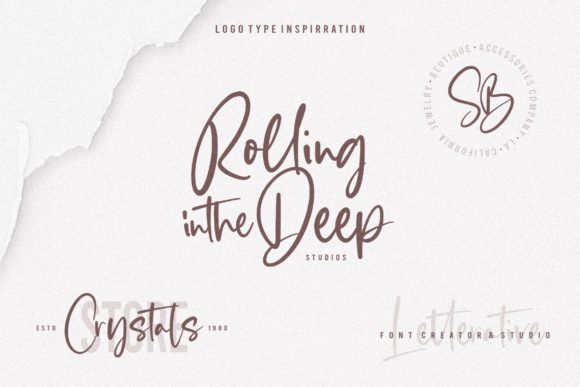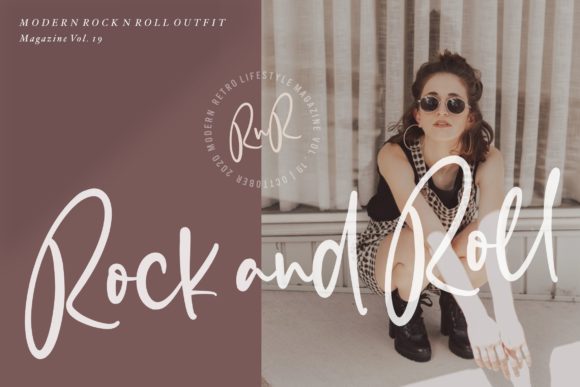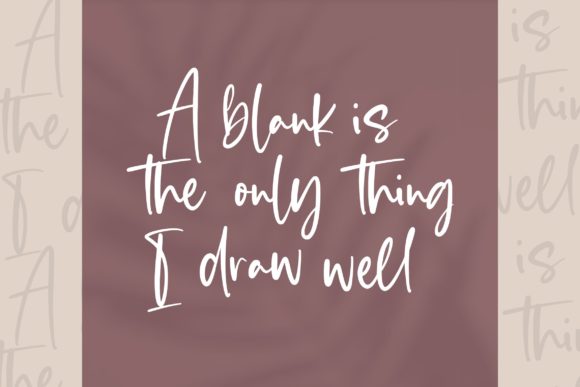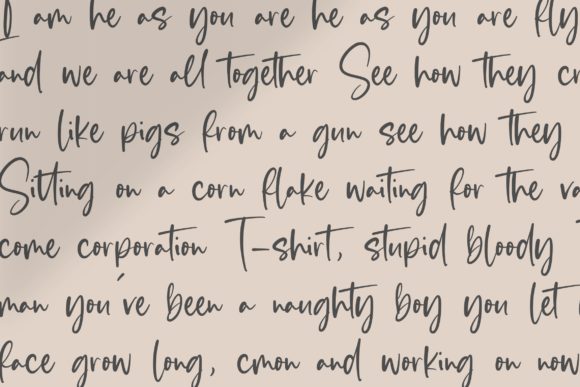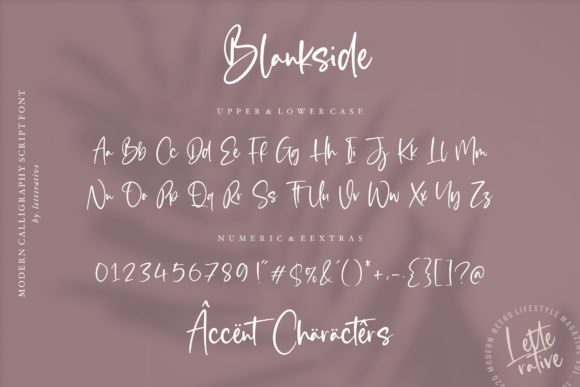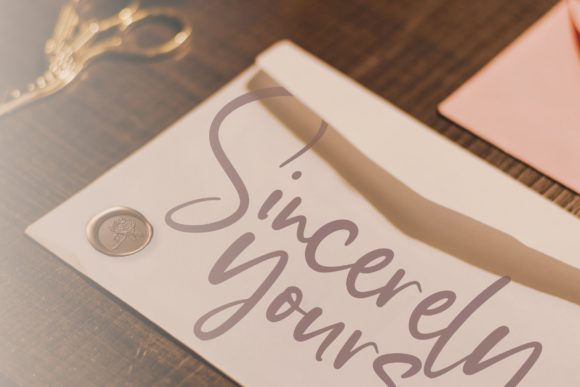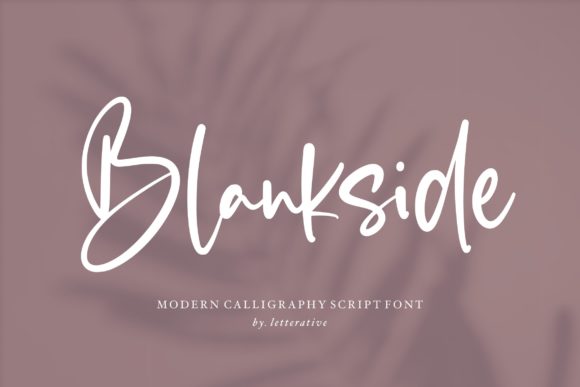
Introducing Blankside Font: The Cute and Asymmetrical Handwritten Font for Your Design Needs
Are you a designer or crafter looking for a unique and eye-catching font to add a personal touch to your designs? Look no further than Blankside Font! This adorable and asymmetrical handwritten font is perfect for a variety of design projects, from wedding invitations and thank you cards to quotes, greeting cards, logos, and business cards.
The Characteristics of Blankside Font
Blankside Font is a one-of-a-kind font that boasts a charming and whimsical feel. Its asymmetrical design gives it a playful and informal look that’s sure to capture the attention of your audience. The font’s handwritten style adds a touch of warmth and personality to any design, making it perfect for projects that require a personal and emotional connection.
Uses of Blankside Font
Blankside Font is an incredibly versatile font that can be used in a wide range of design projects. Here are some ideas to get you started:
• Wedding Invitations: Add a touch of romance and whimsy to your wedding invitations with Blankside Font. Its asymmetrical design and handwritten style make it perfect for formal and informal wedding stationery.
• Thank You Cards: Express your gratitude in a unique and stylish way with Blankside Font. Its cute and playful design makes it perfect for thank you cards, gift tags, and other correspondence.
• Quotes and Inspirational Messages: Add a touch of personality to your quotes and inspirational messages with Blankside Font. Its handwritten style and asymmetrical design make it perfect for social media graphics, posters, and other visual content.
• Greeting Cards: Create unique and eye-catching greeting cards for any occasion with Blankside Font. Its playful and informal design makes it perfect for birthdays, holidays, and other celebrations.
• Logos and Branding: Use Blankside Font to add a personal touch to your logo and branding materials. Its handwritten style and asymmetrical design make it perfect for businesses that want to stand out from the crowd.
• Business Cards: Add a touch of personality to your business cards with Blankside Font. Its cute and playful design makes it perfect for entrepreneurs, freelancers, and small business owners.
Why Choose Blankside Font?
So why choose Blankside Font for your design needs? Here are just a few reasons:
• Unique and Eye-Catching: Blankside Font is a one-of-a-kind font that’s sure to capture the attention of your audience. Its asymmetrical design and handwritten style make it perfect for designers and crafters who want to stand out from the crowd.
• Versatile: Blankside Font is an incredibly versatile font that can be used in a wide range of design projects. Whether you’re creating wedding invitations, greeting cards, or logos, this font is sure to meet your needs.
• High-Quality: Blankside Font is a high-quality font that’s designed to look great on any device. Whether you’re designing for print or digital, this font is sure to deliver exceptional results.
Blankside Font is a cute and asymmetrical handwritten font that’s perfect for designers and crafters who want to add a personal touch to their designs. Its unique and eye-catching design makes it perfect for a wide range of projects, from wedding invitations and greeting cards to logos and business cards. With its versatility, ease of use, and high-quality design, Blankside Font is a must-have font for any designer or crafter.